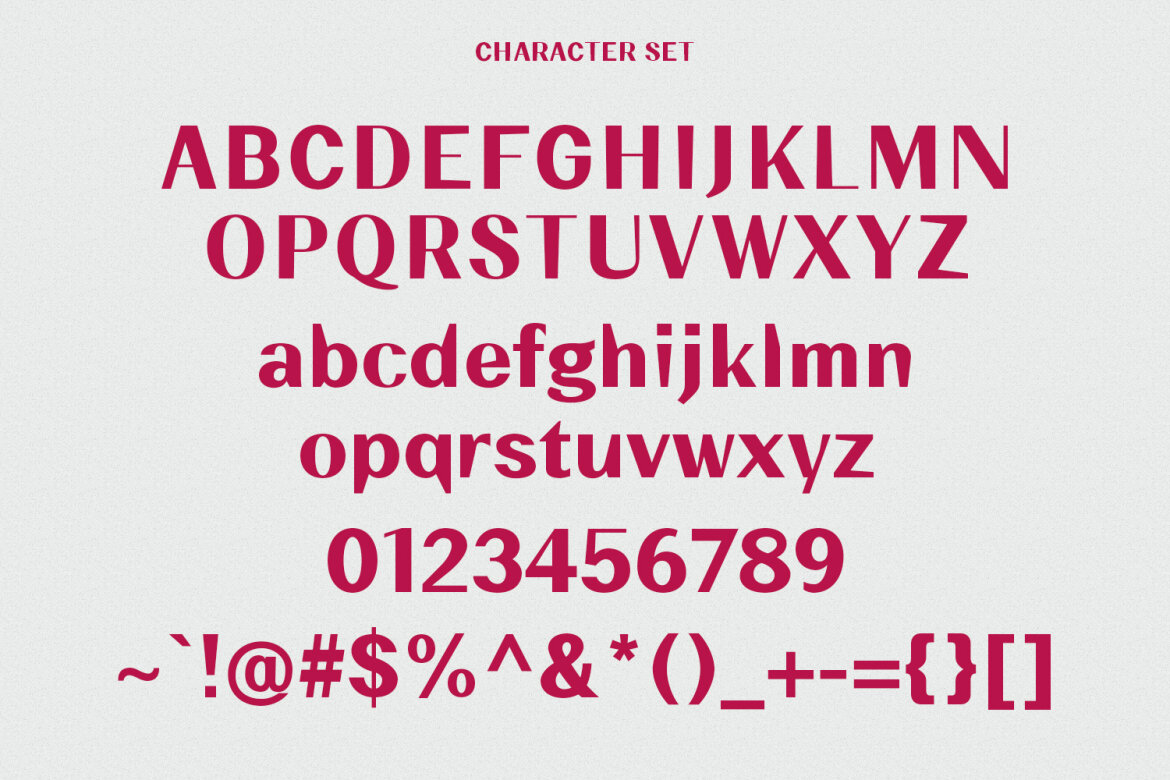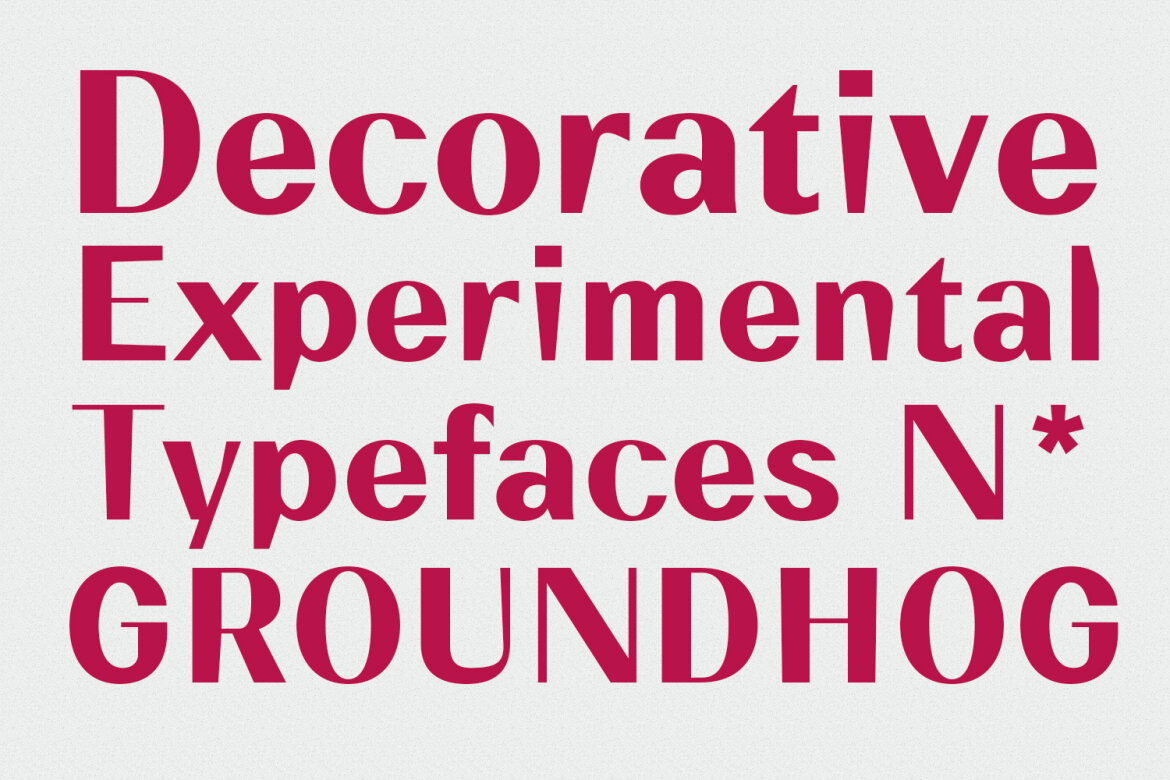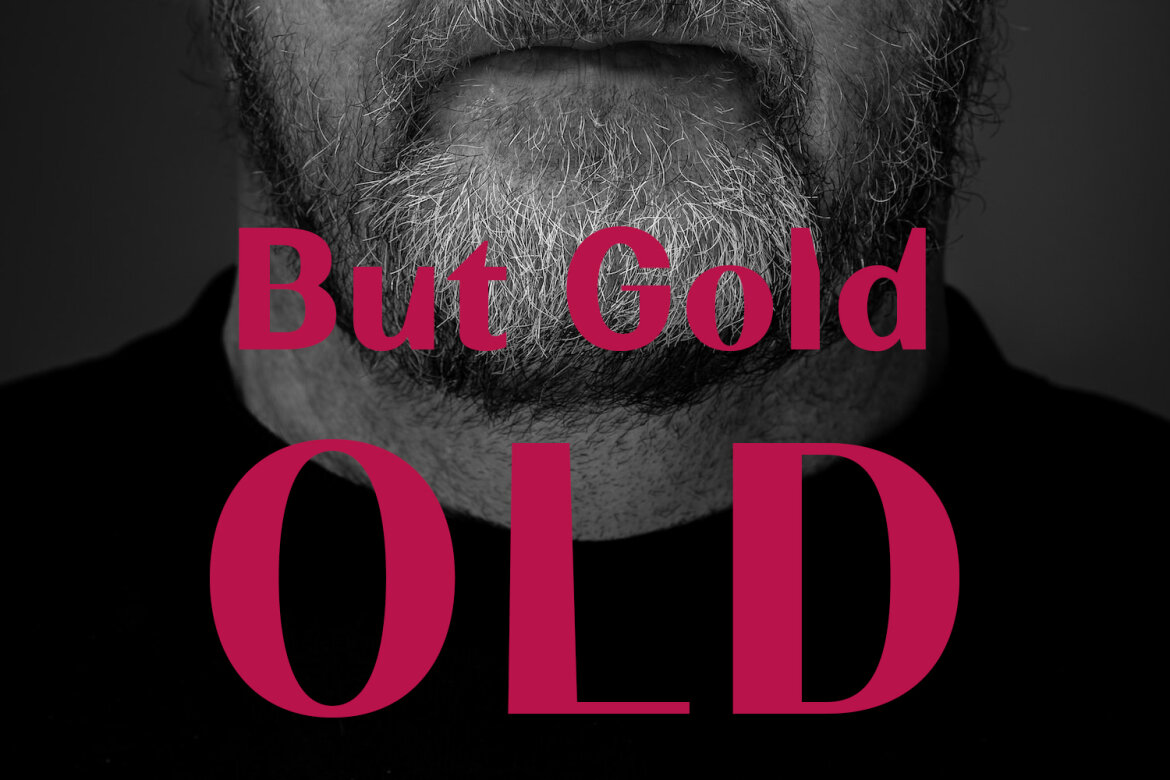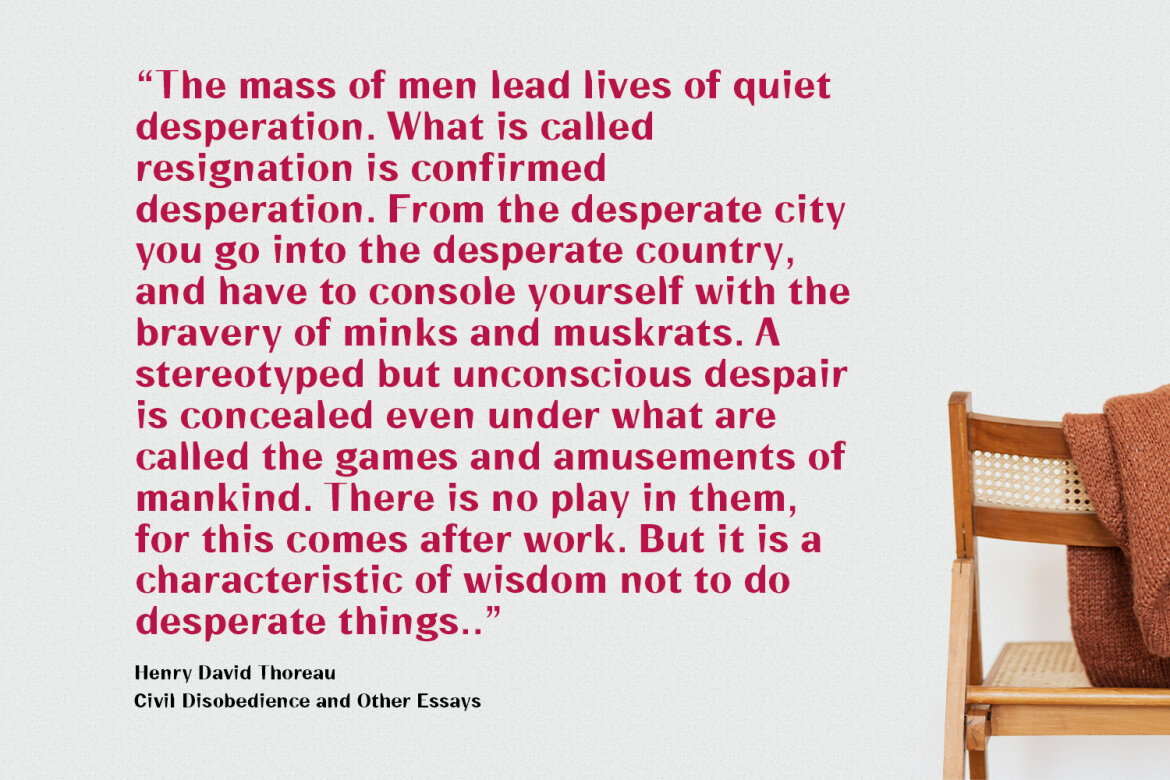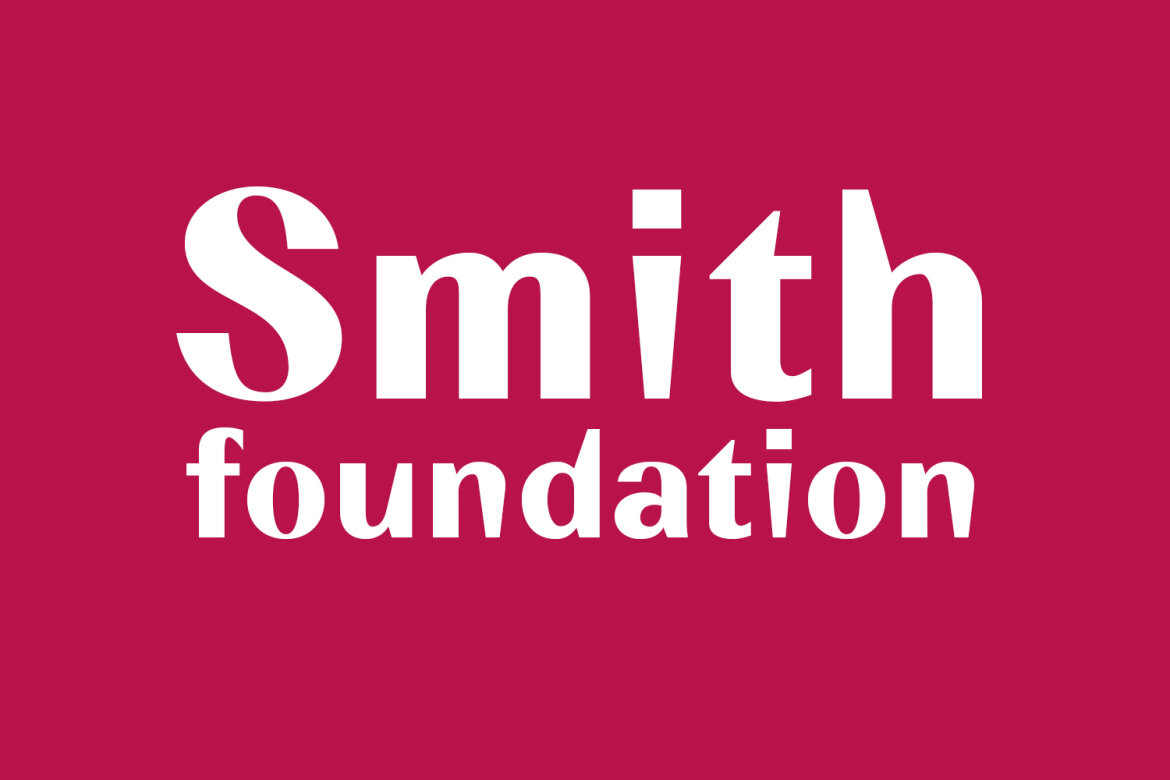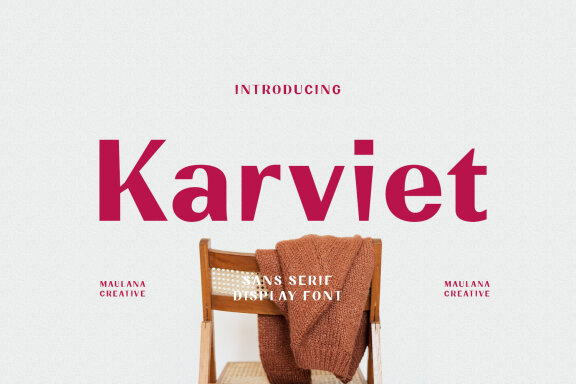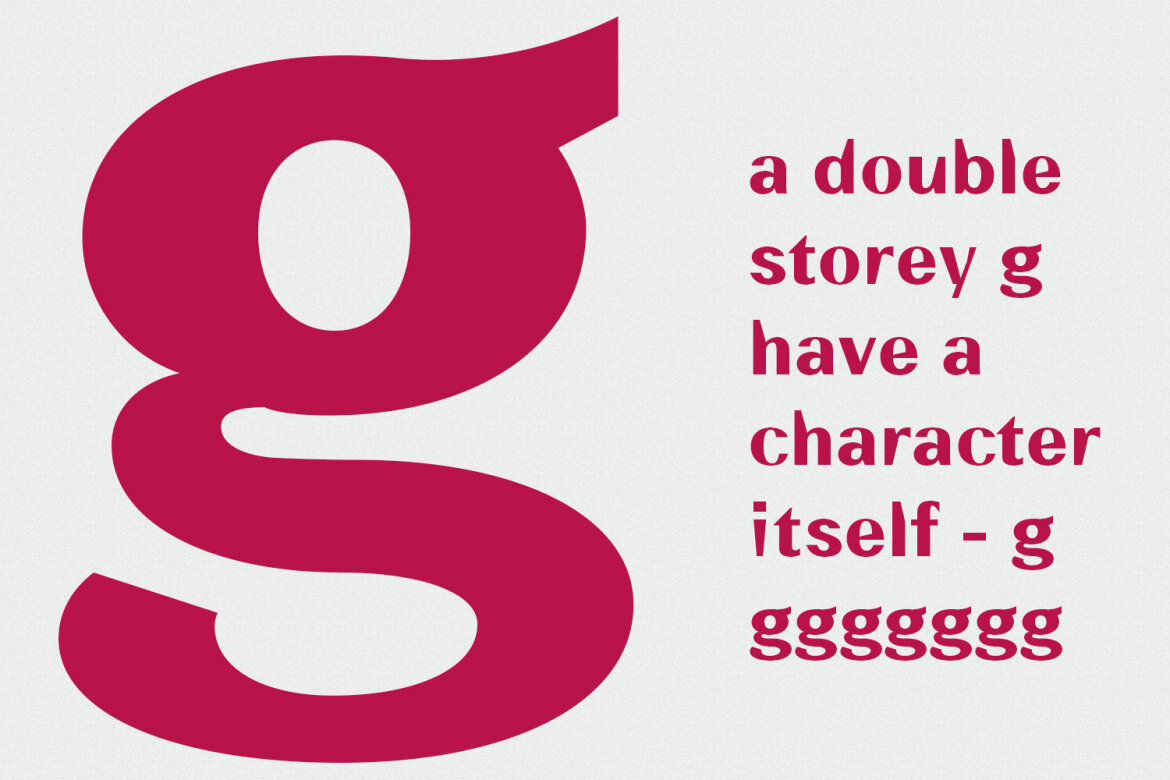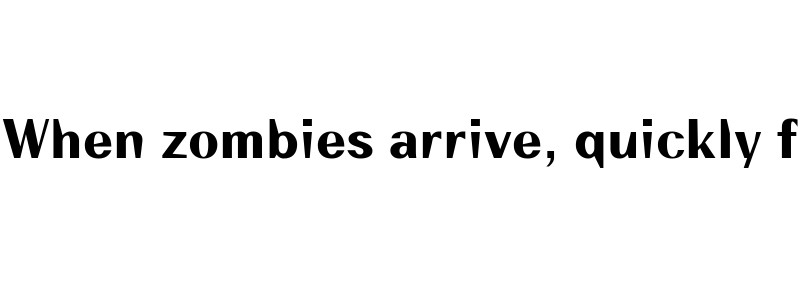
Karviet FREE Sans Font
Karviet
Karviet is a decorative experimental display font. Regular stroke, fun character with a bit of ligatures and alternates. To give you an extra creative work. Karviet font support multilingual more than 100+ language. This font is good for logo design, Social media, Movie Titles, Books Titles, a short text even a long text letter and good for your secondary text font with script or serif. Make a stunning work with Karviet font.